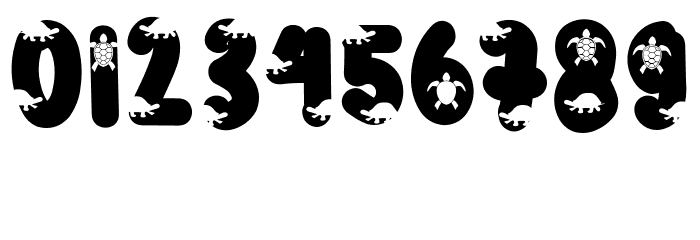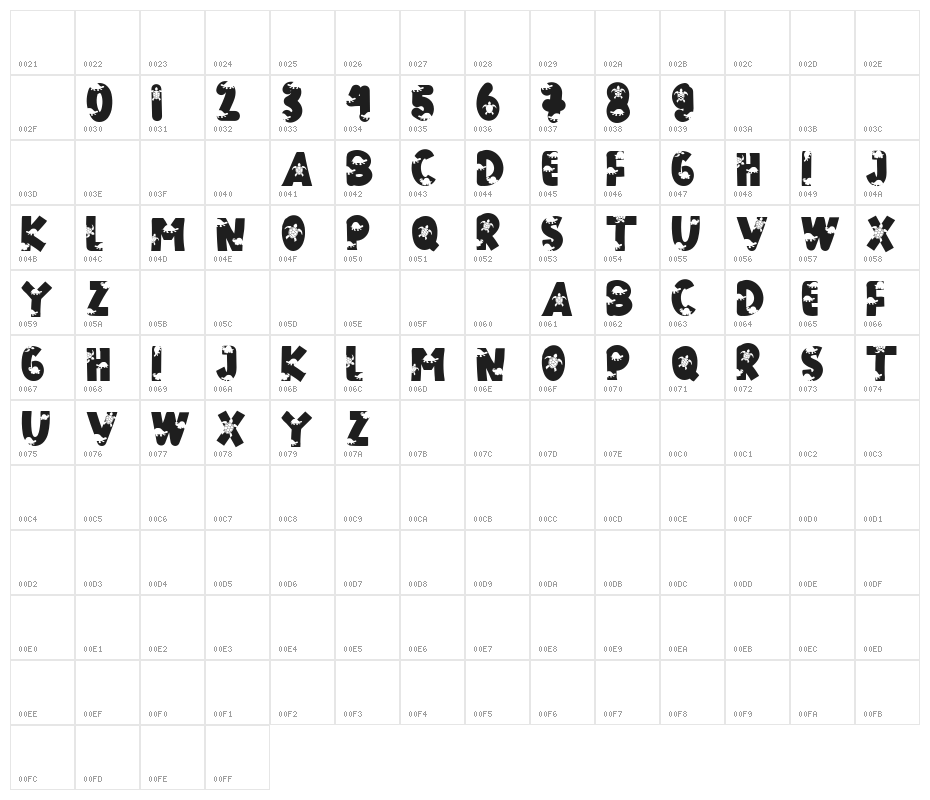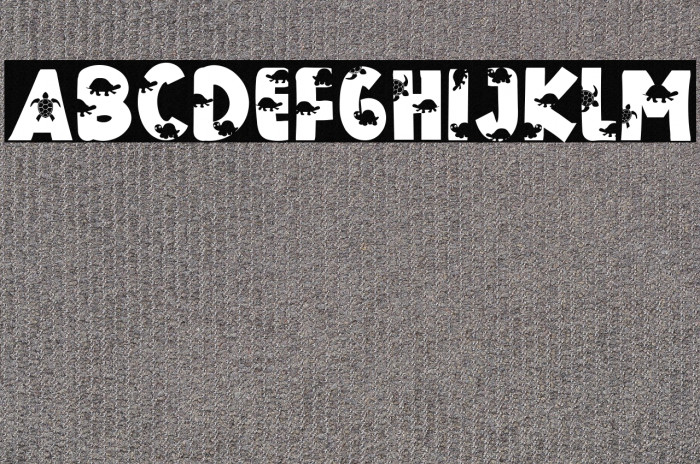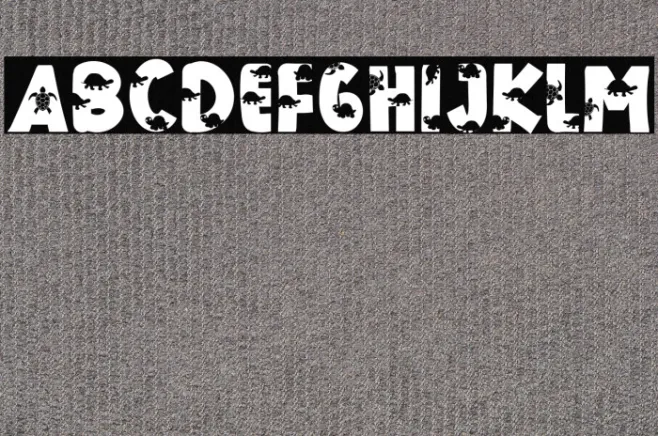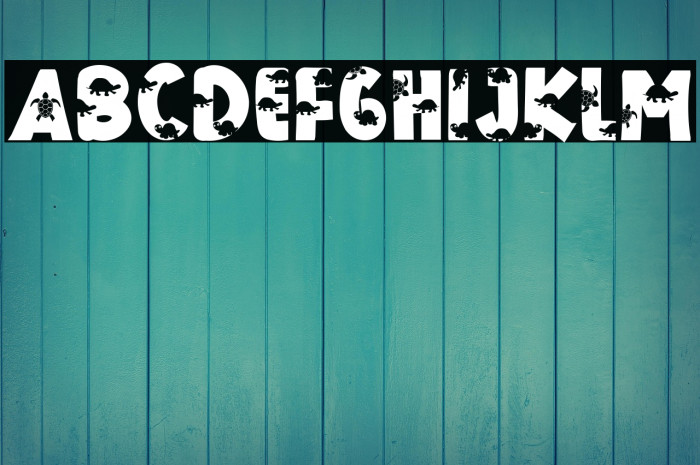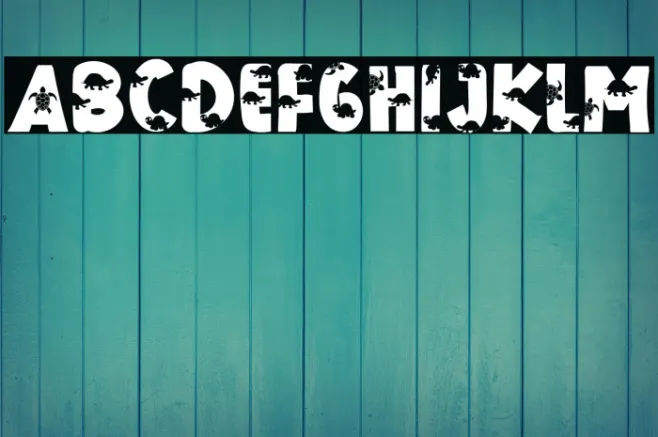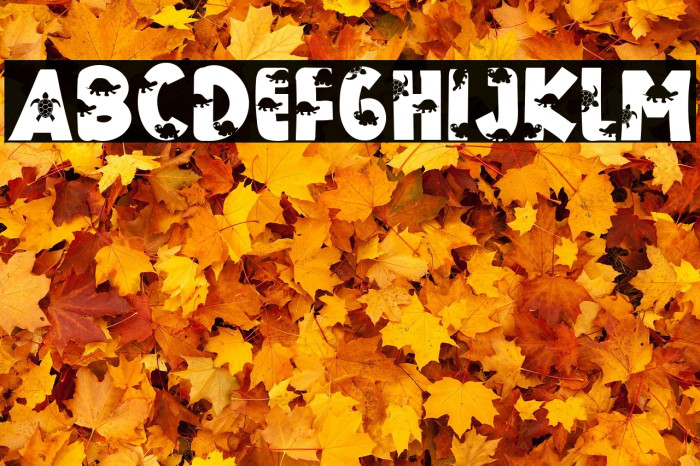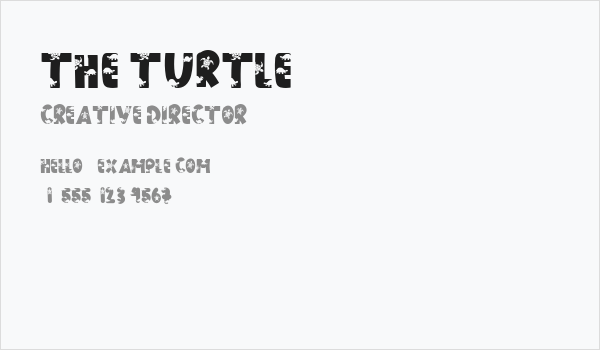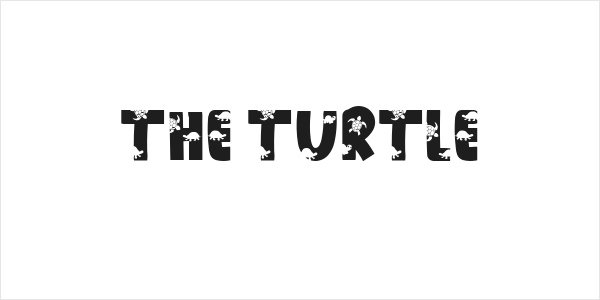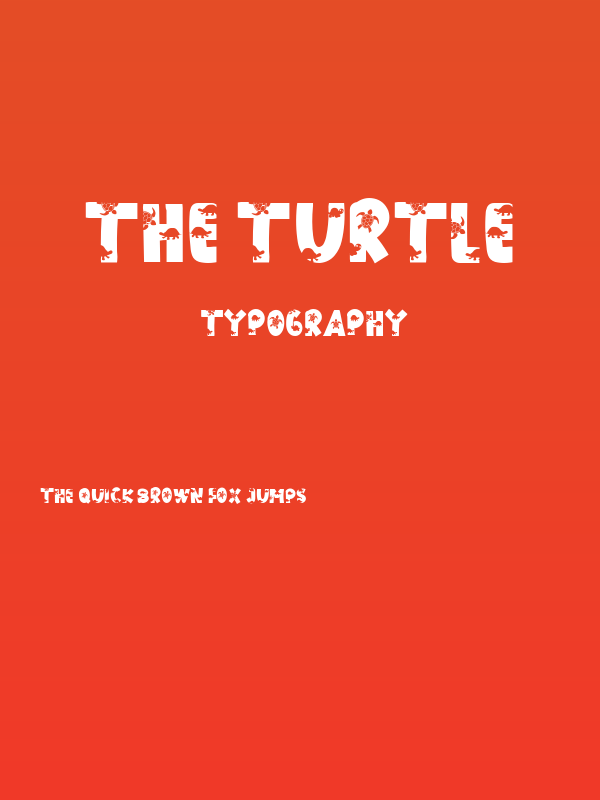
THE TURTLE Font
THE TURTLE Description
This playful and whimsical font features bold, rounded characters with unique turtle illustrations integrated into each letter and number. The design is eye-catching and fun, making it ideal for projects that require a touch of creativity and humor. The turtles are cleverly placed to complement the shape of each character, adding a distinctive and memorable element to the font. The overall style is bold and decorative, with a strong presence that stands out in any design. The font is perfect for children's books, playful branding, or any project that aims to convey a sense of fun and imagination.
| Proposed Projects | Ideal for children's books, playful branding, posters, and creative invitations. |